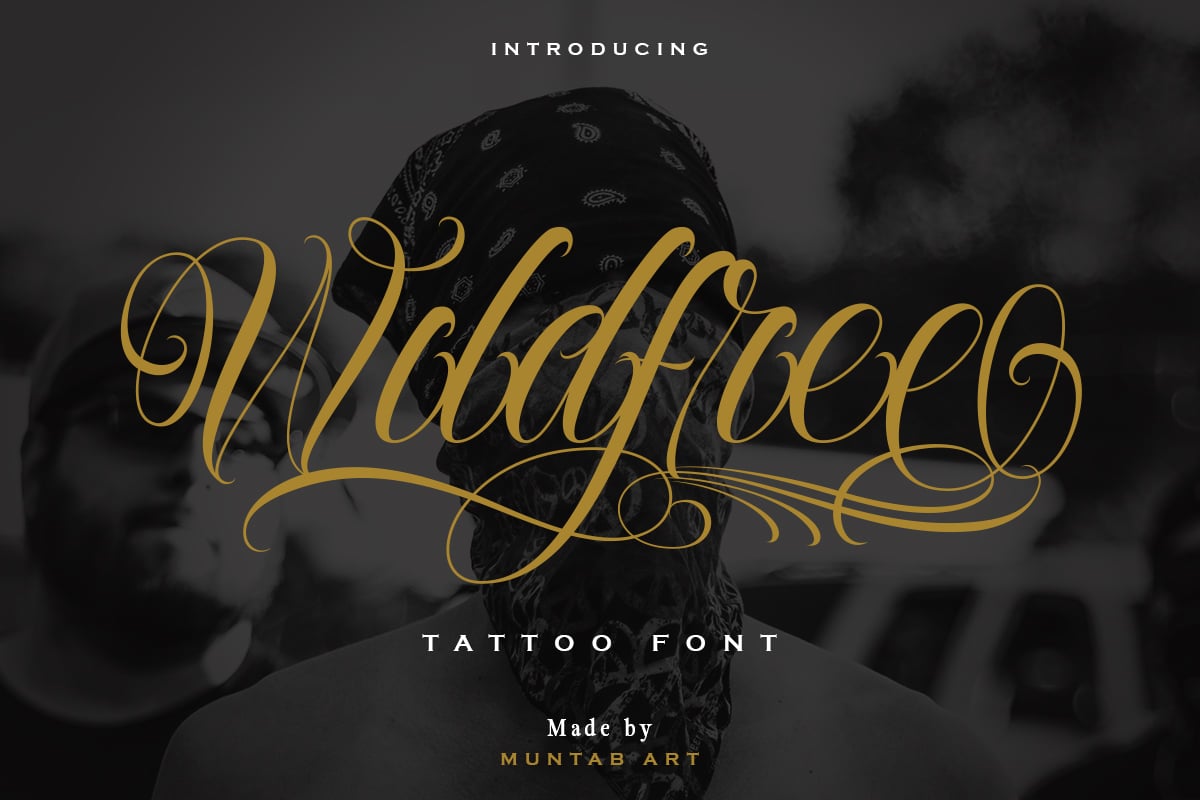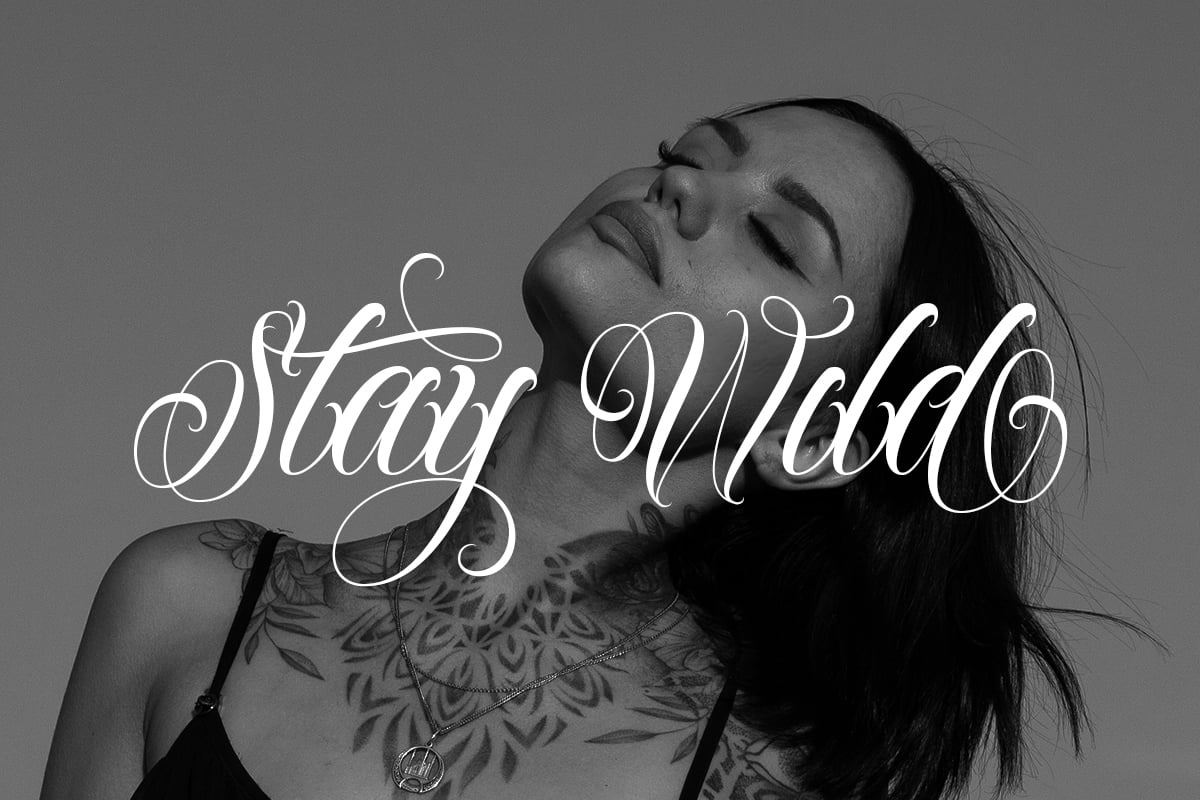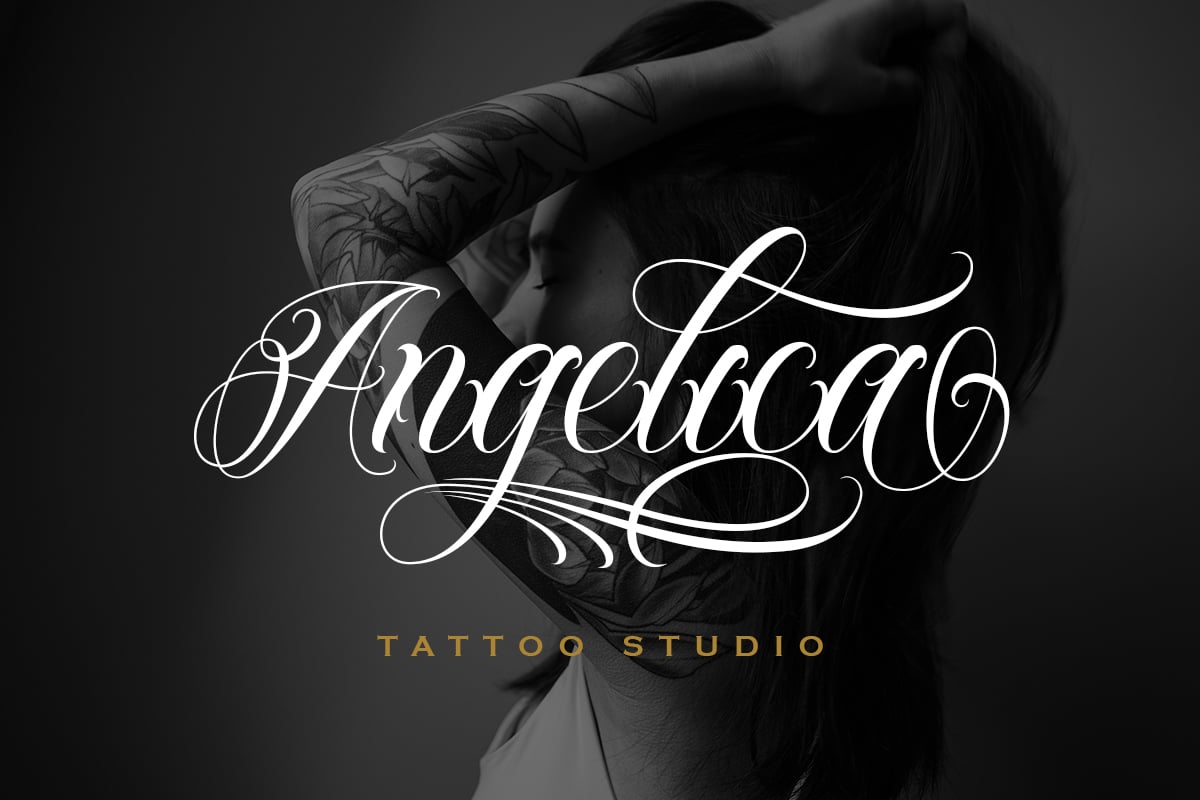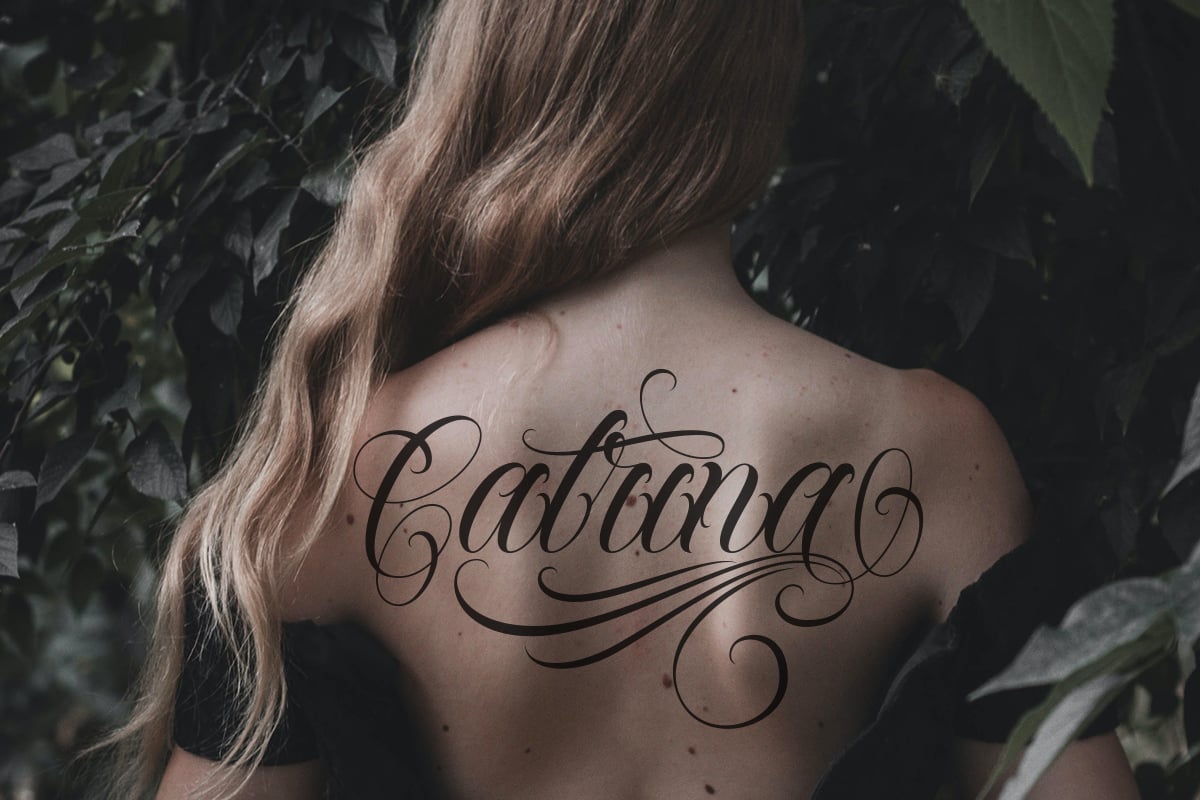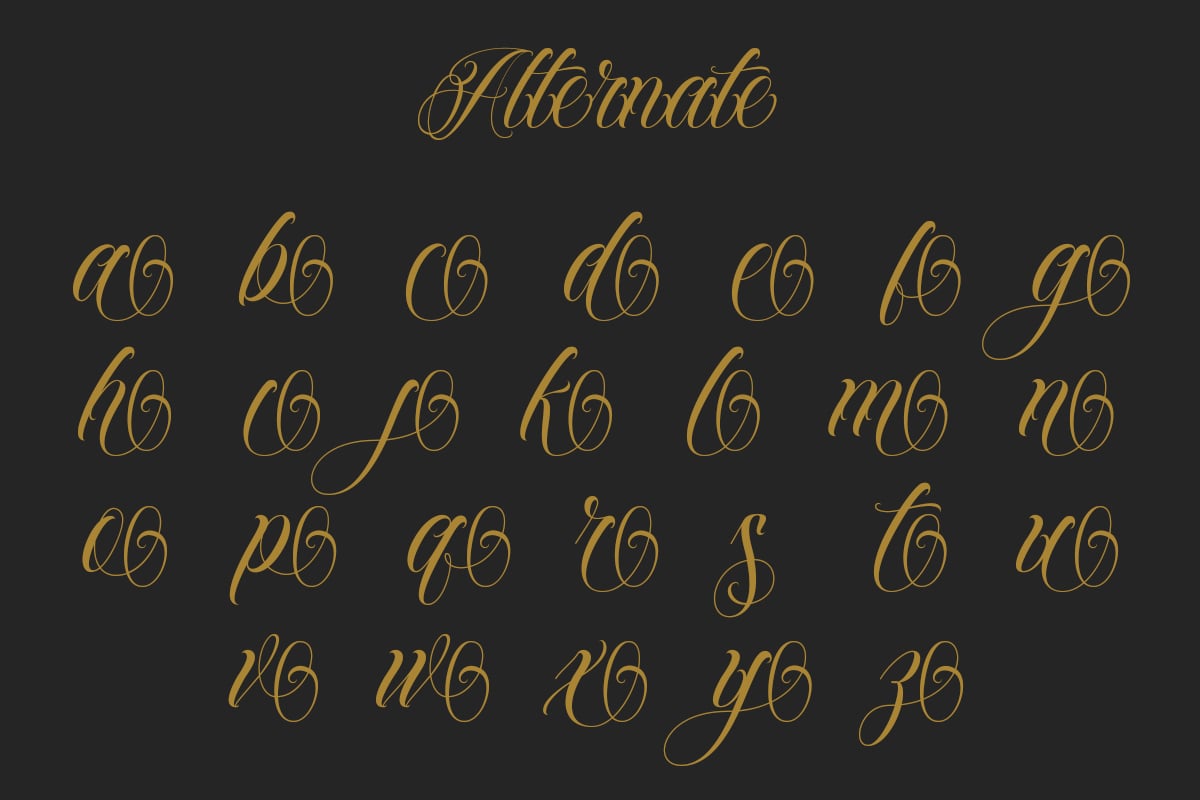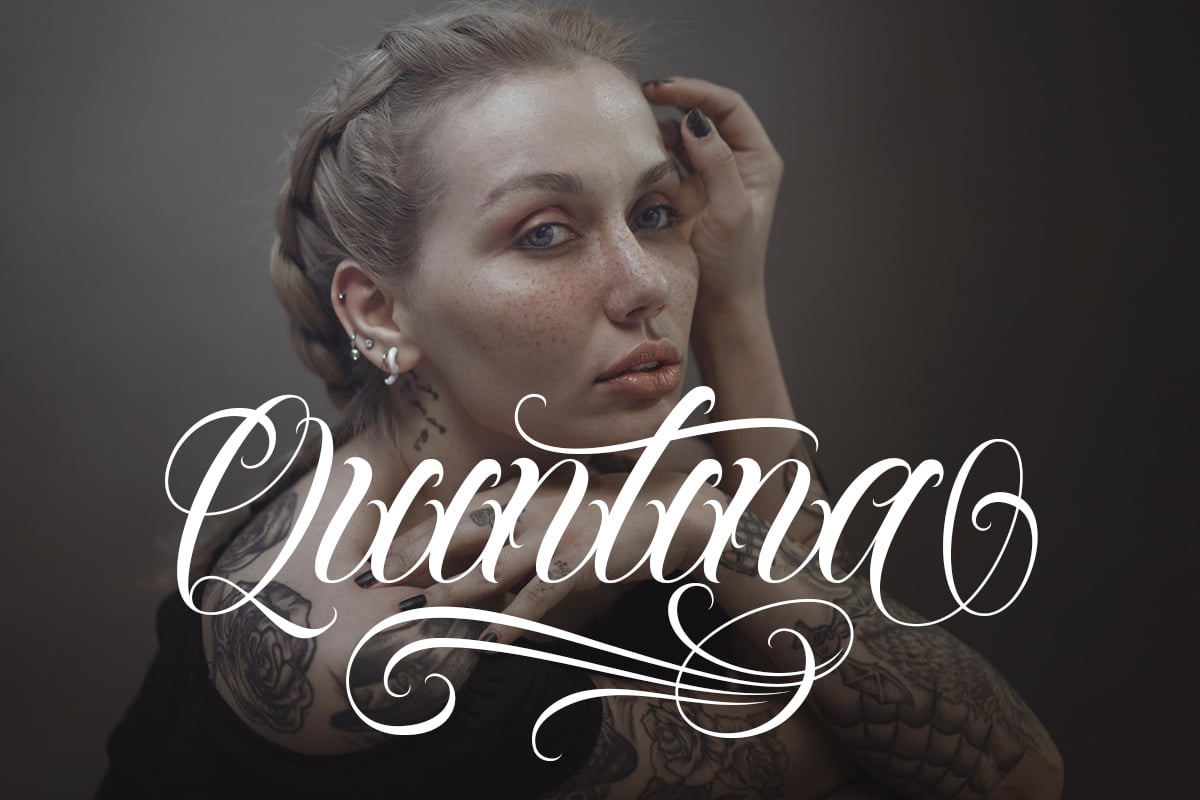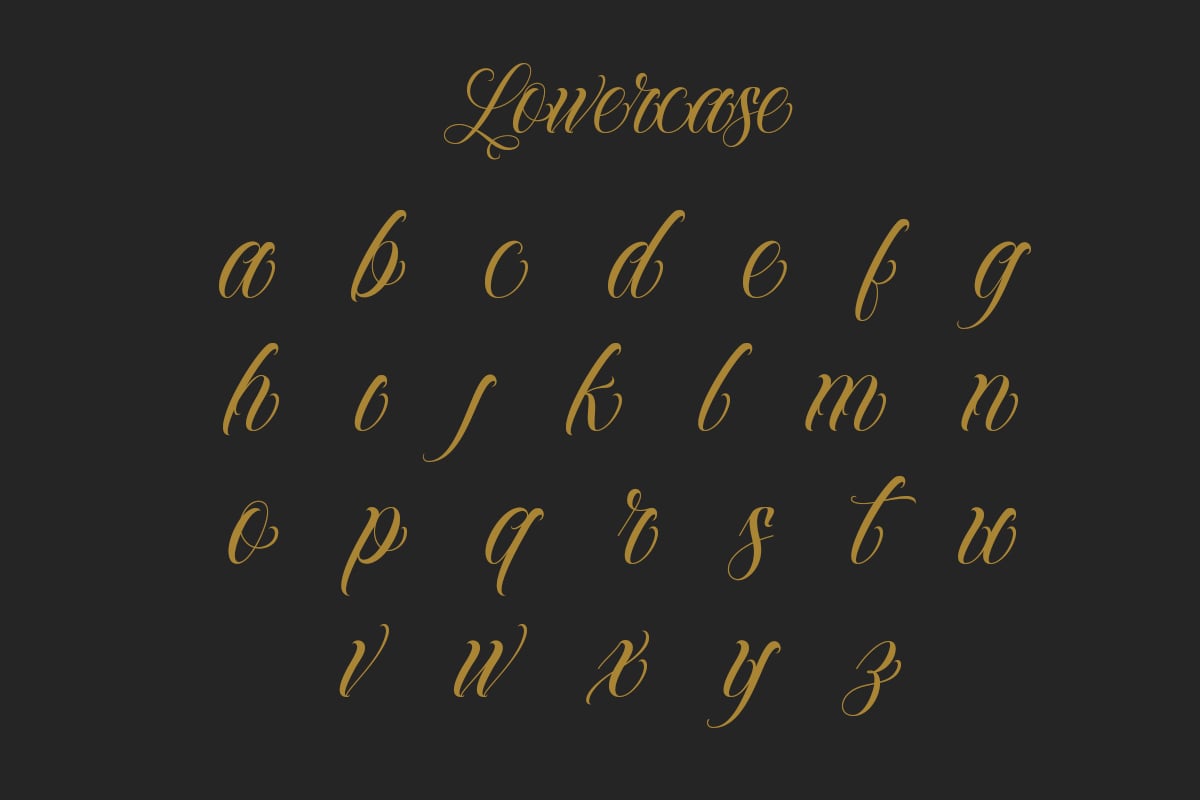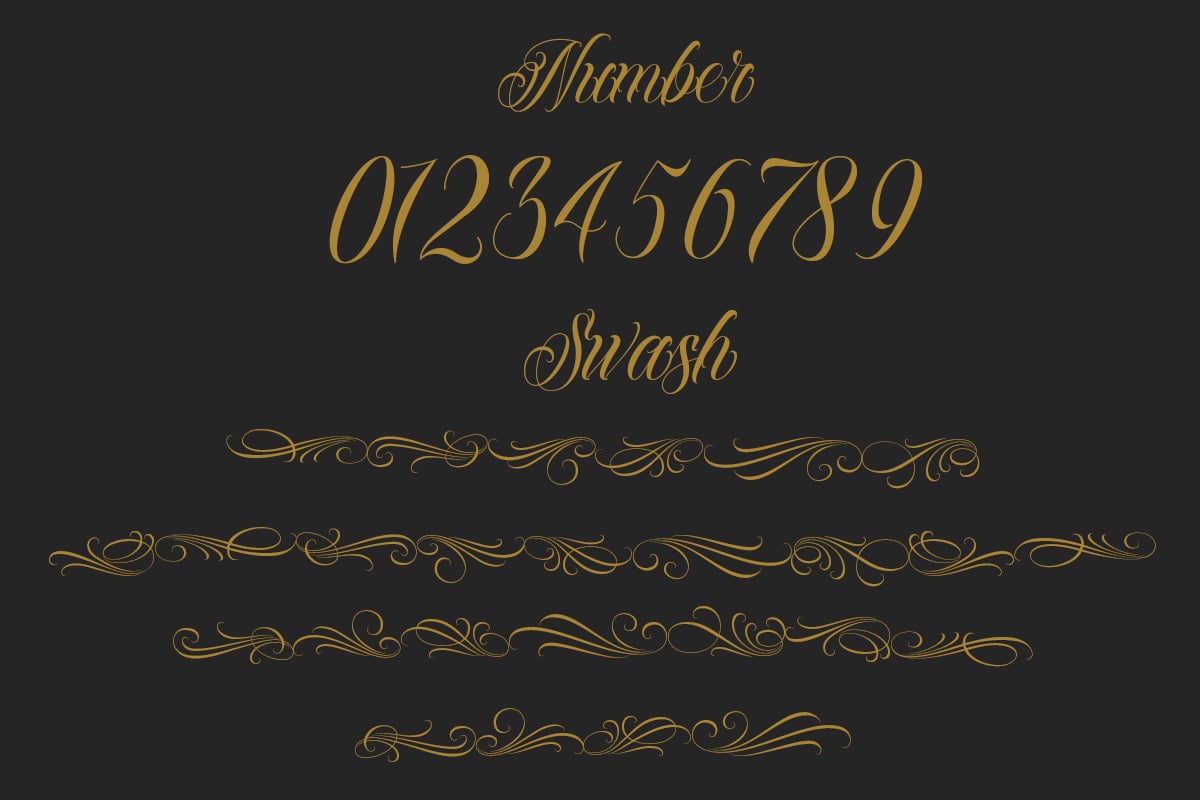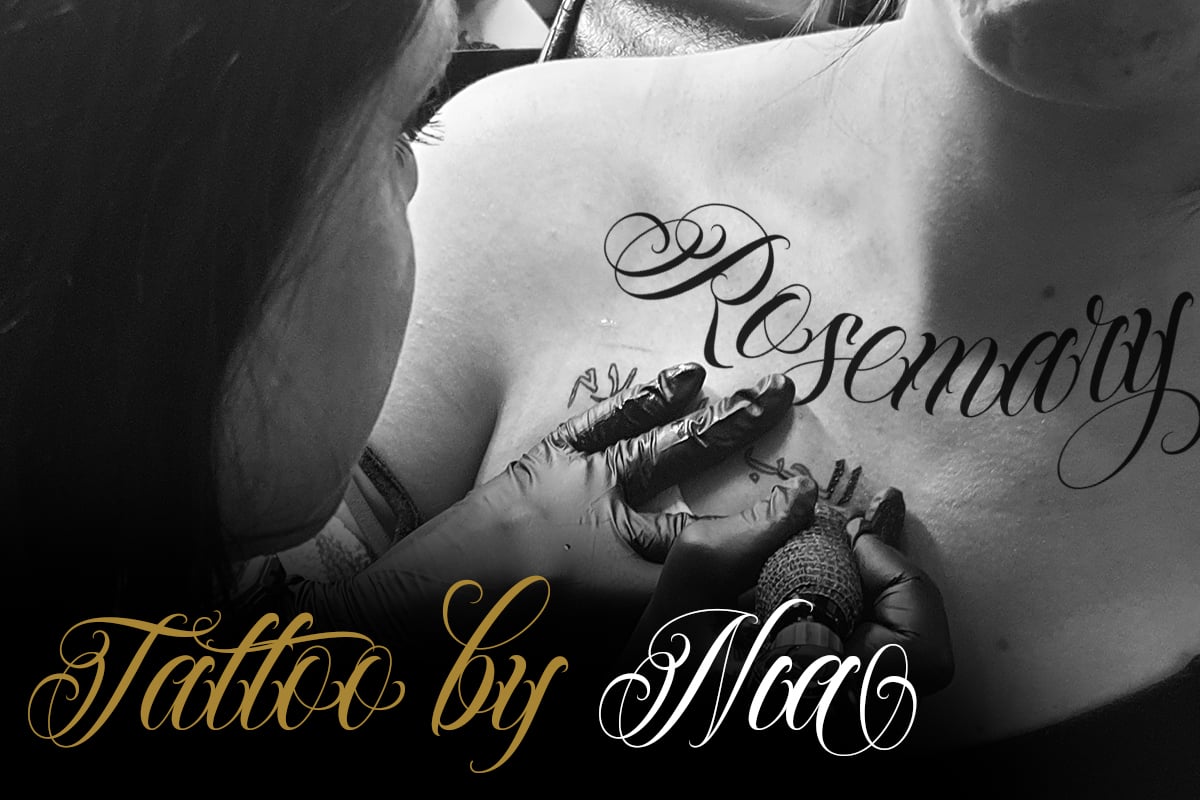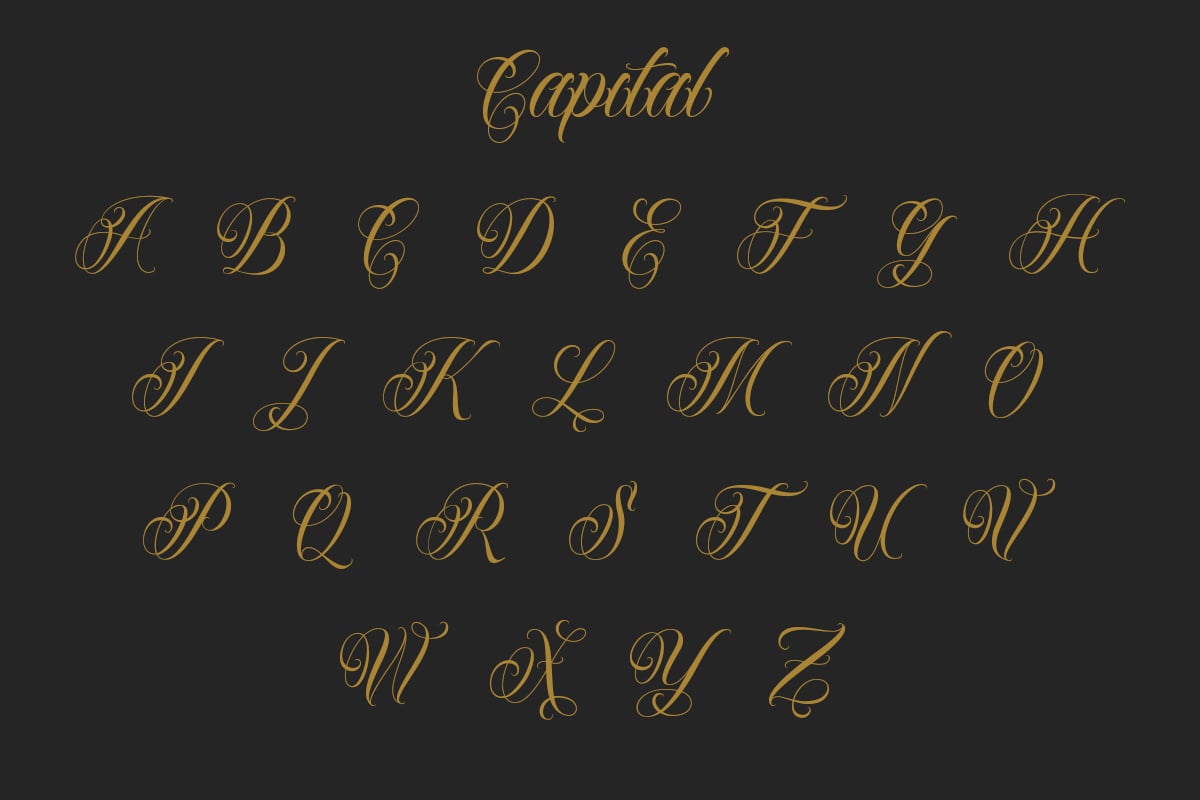
Wildfree | Chicano Tattoo Font
Introducing our new product the name Wildfree | Chicano Tattoo Style. Wildfree font includes uppercase and lowercase letters, numerals, a large range of punctuation, and ligatures. All lowercase letters include ending swashes and alternative font.
FEATURES : Uppercase Lowercase Number Punctuation Multilingual Swash Opentype